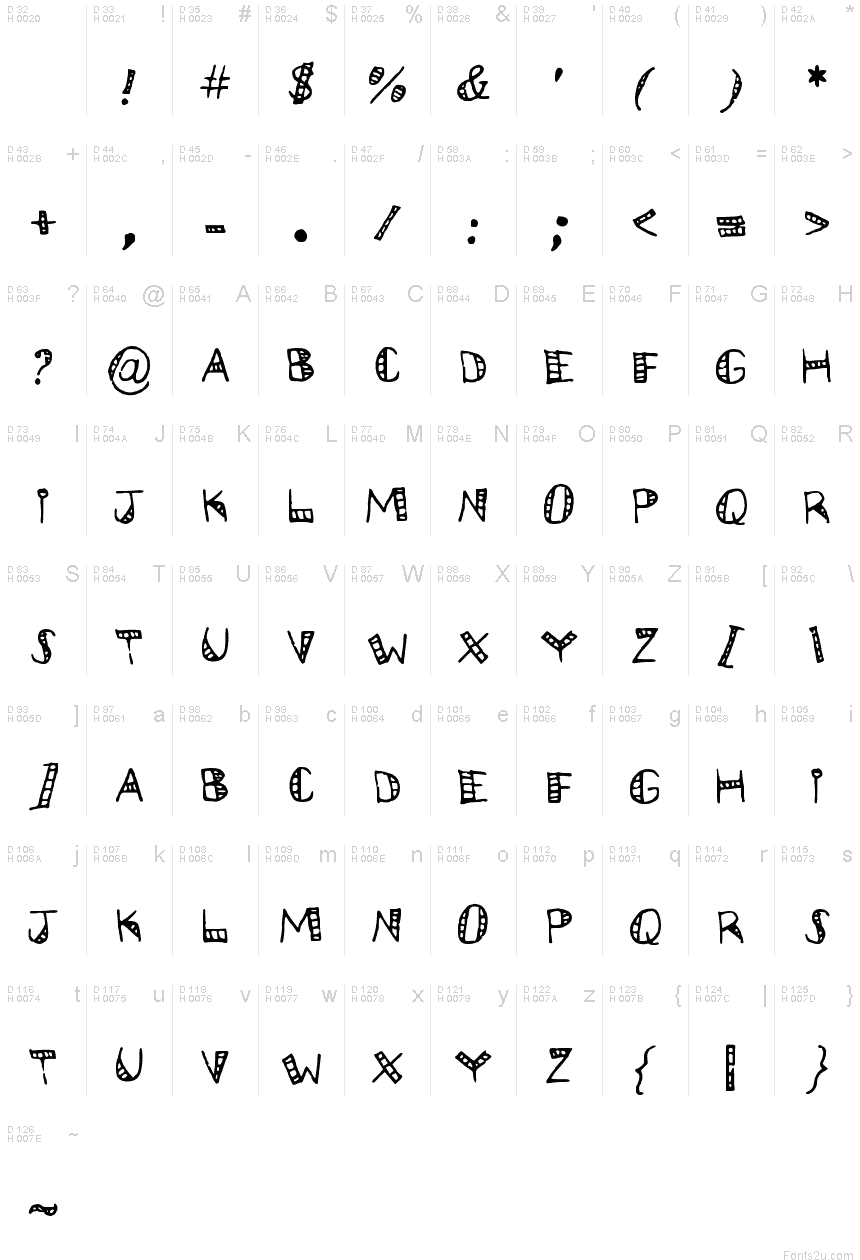
Carnival Block is a free decorative display font with tall, irregular capitals. Its wavering contours and changing stroke widths recall painted fairground signs. Small holes, stripes, and uneven openings puncture the dark letterforms.
Posters make good use of its lively silhouette and built-in ornament. It also suits festival branding and playful event graphics. In editorial design, the lettering can turn cover lines into illustrated features for children's publishing.